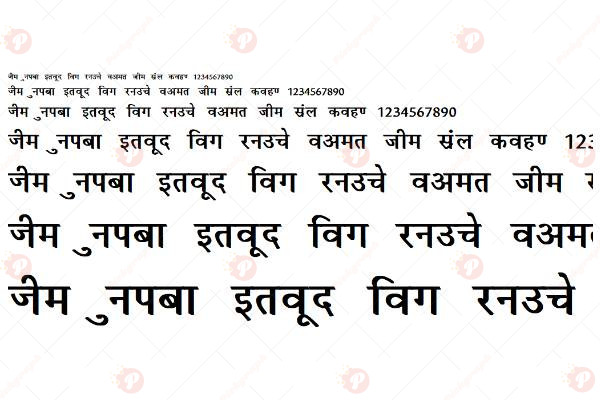
The Krishna Bold Font is a powerful devotional typeface designed to bring strength and tradition to your projects. With its bold and striking strokes, this font is perfect for festival posters, banners, invitations, religious books, cultural branding, packaging, and social media graphics.
Combining heritage with bold visibility, Krishna Bold ensures your text stands out in both digital and print projects, making it a must-have for devotional and cultural creatives.
Style: Bold / Devotional / Traditional Typeface